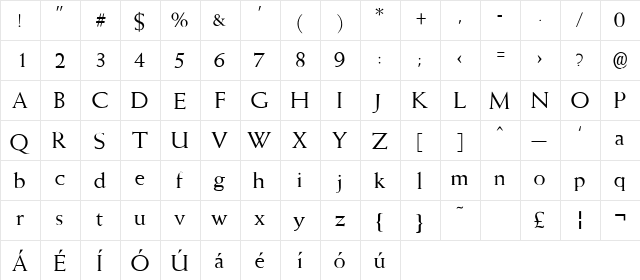
Yardstick Regular
Design Context for Yardstick Typeface
Yardstick takes a measured approach to typography — its balanced proportions and neutral character make it a reliable workhorse for both digital and print work.